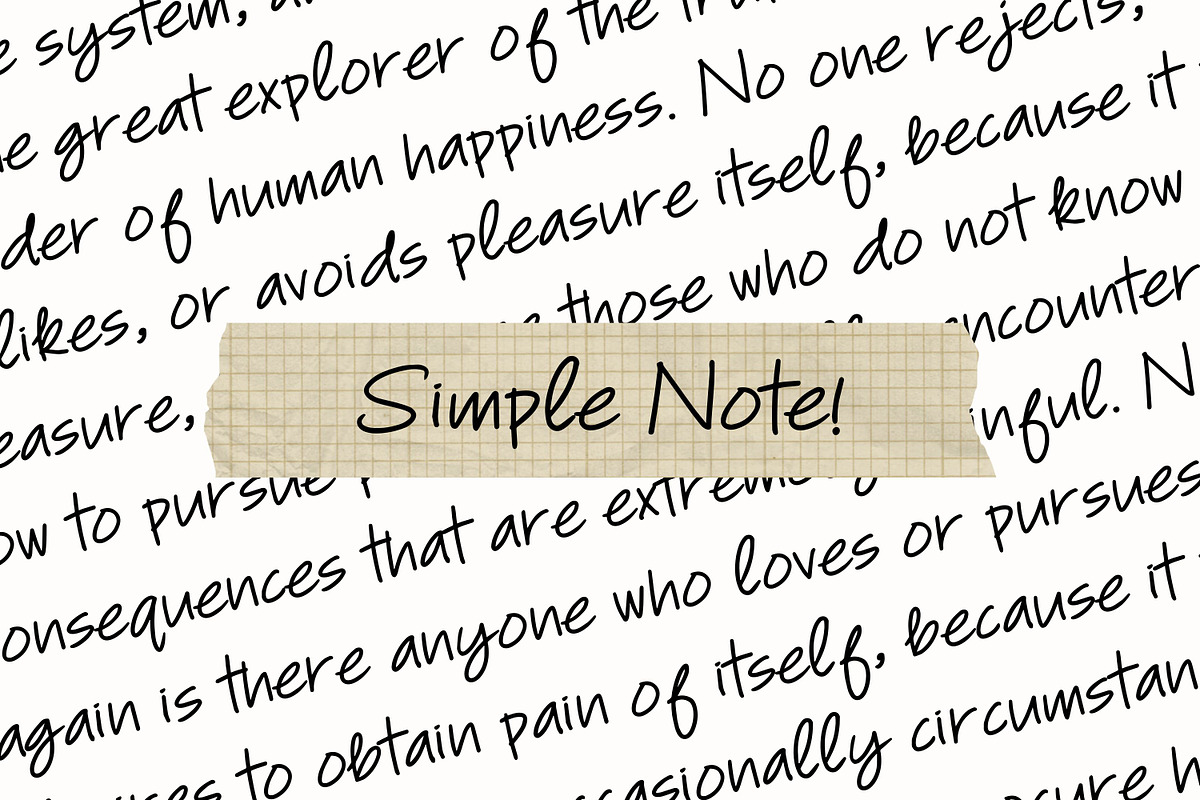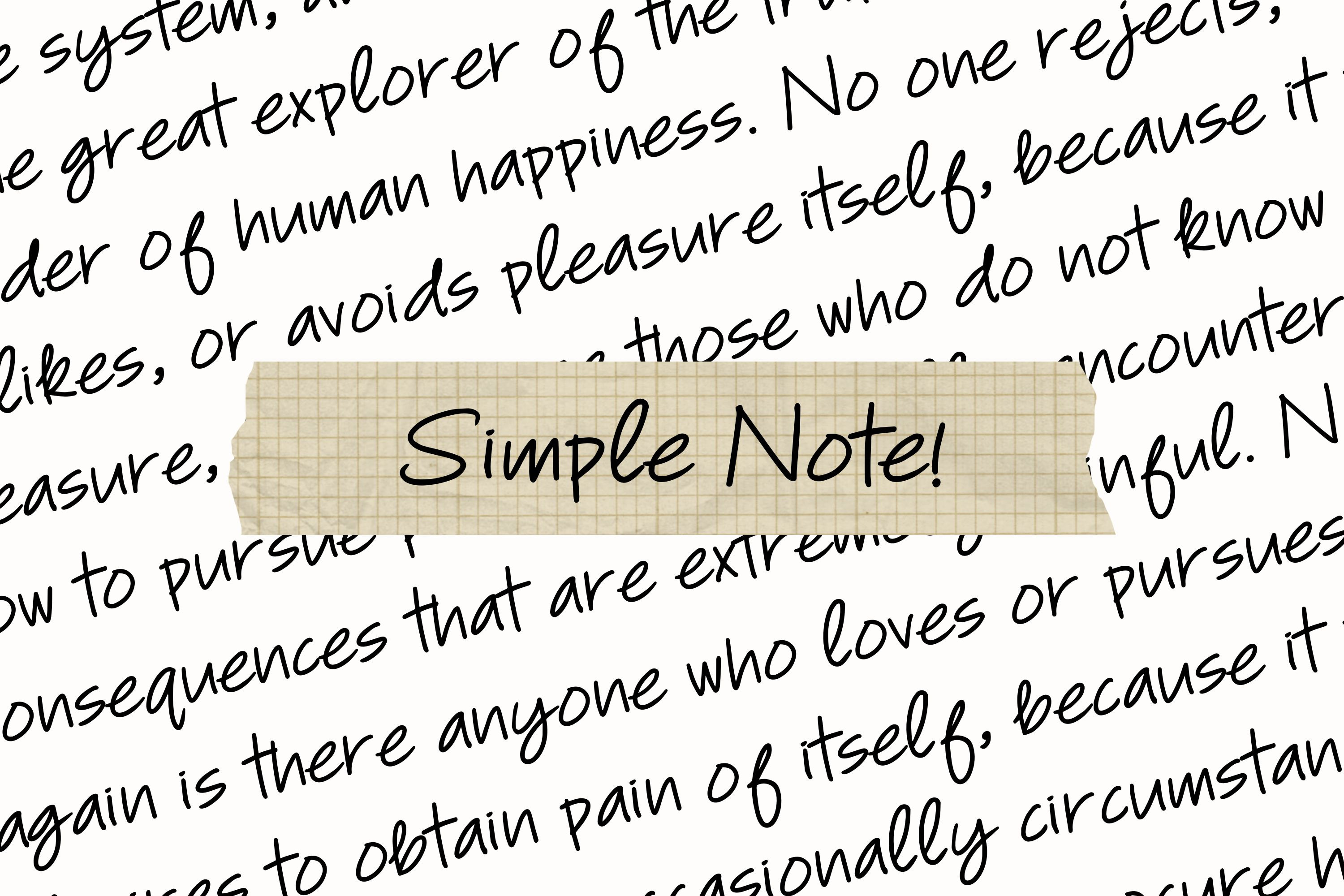
Simple Note - Handwritten Font
Simple Note is a casual handwriting font with natural stroke. This font will be perfect for notes, product description, headline, product paragraph, logos, branding and many more.